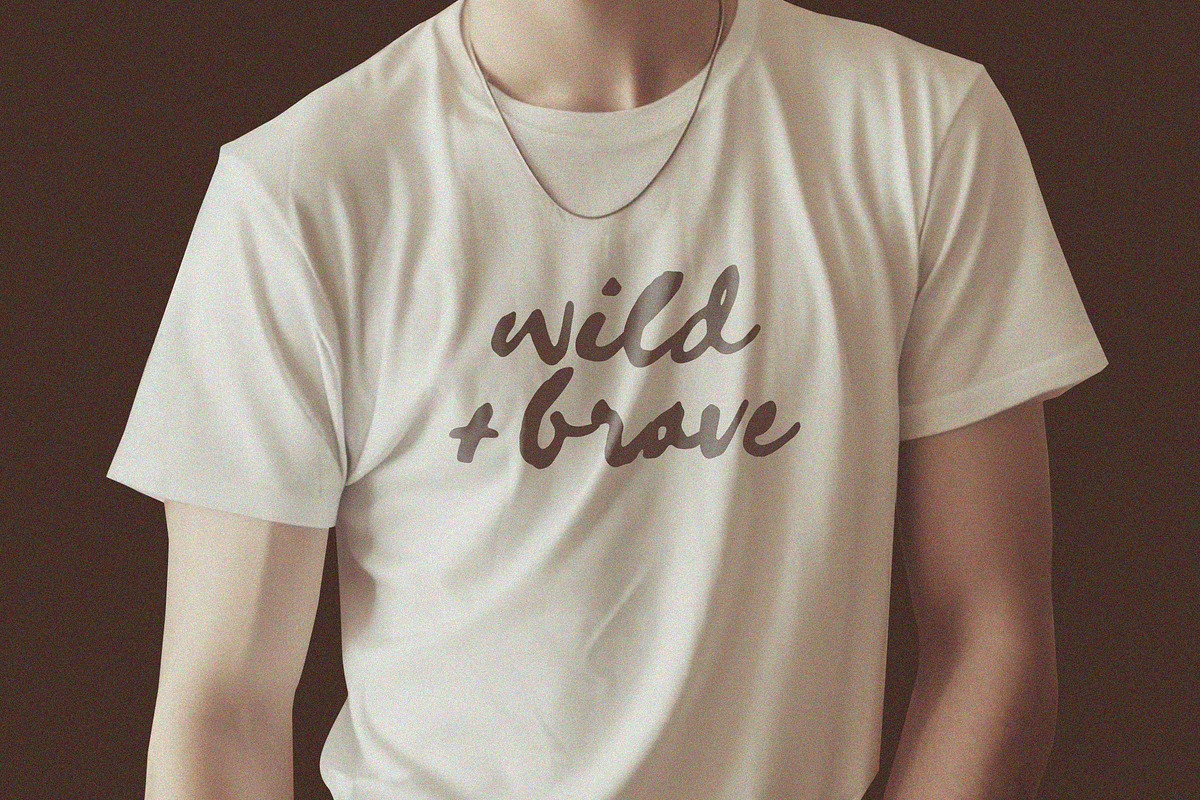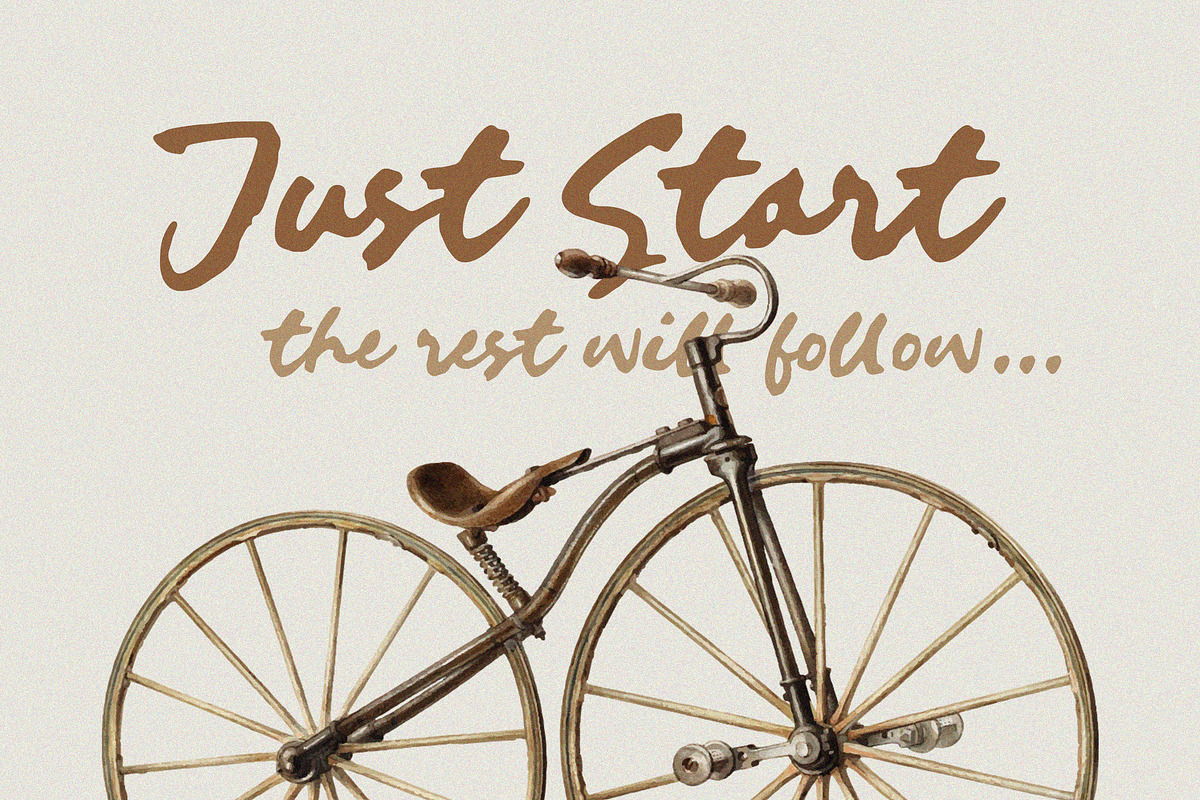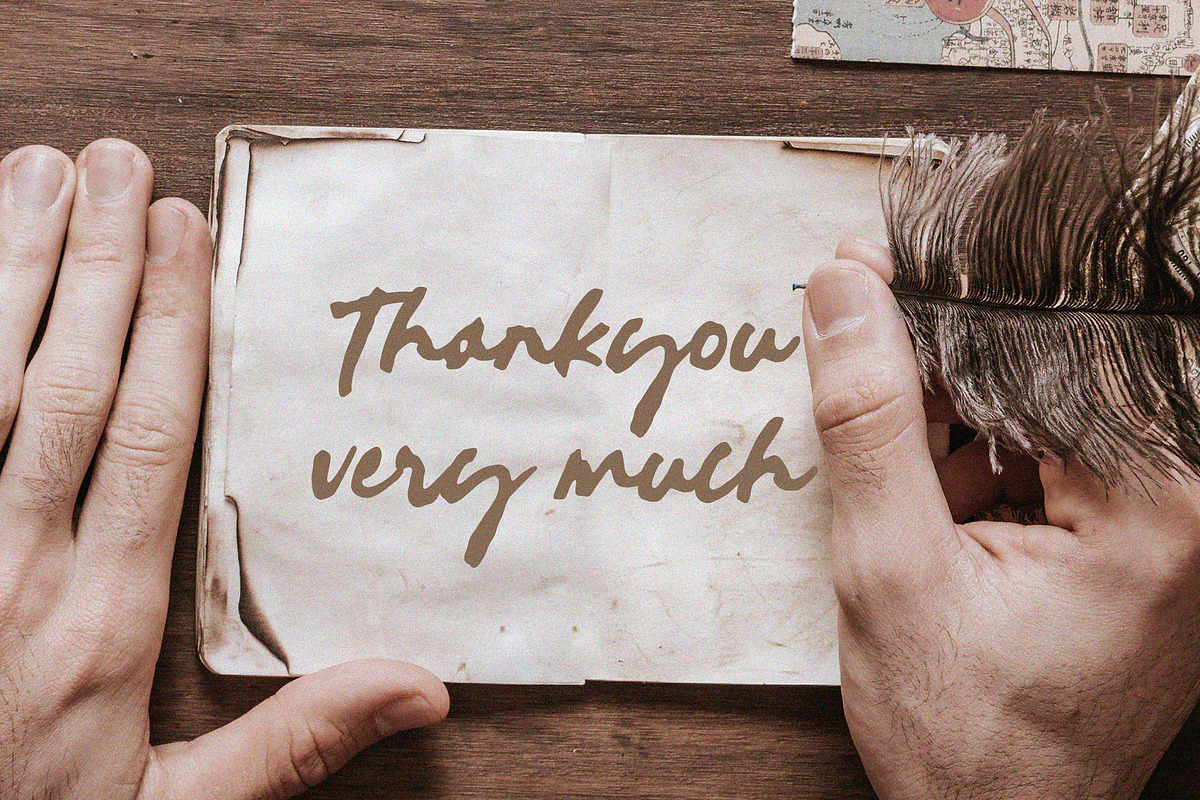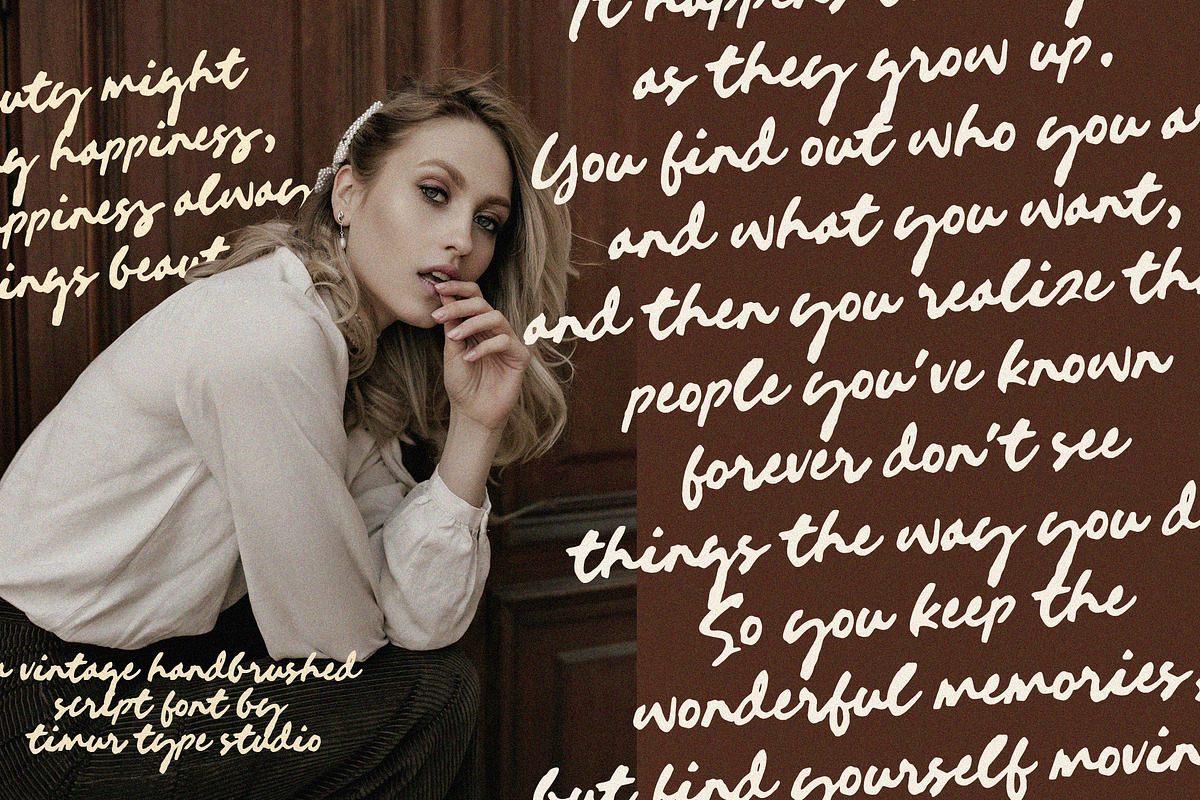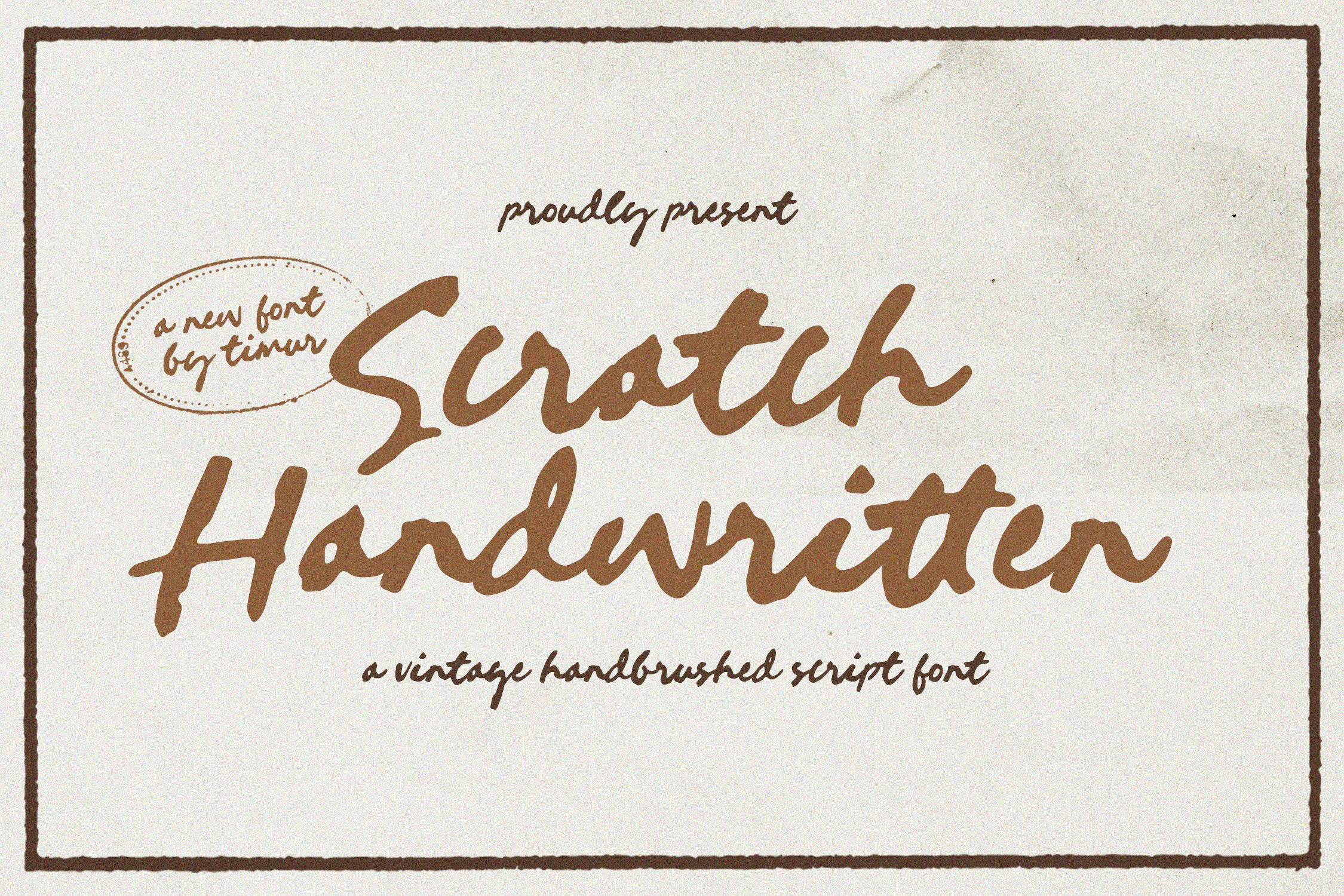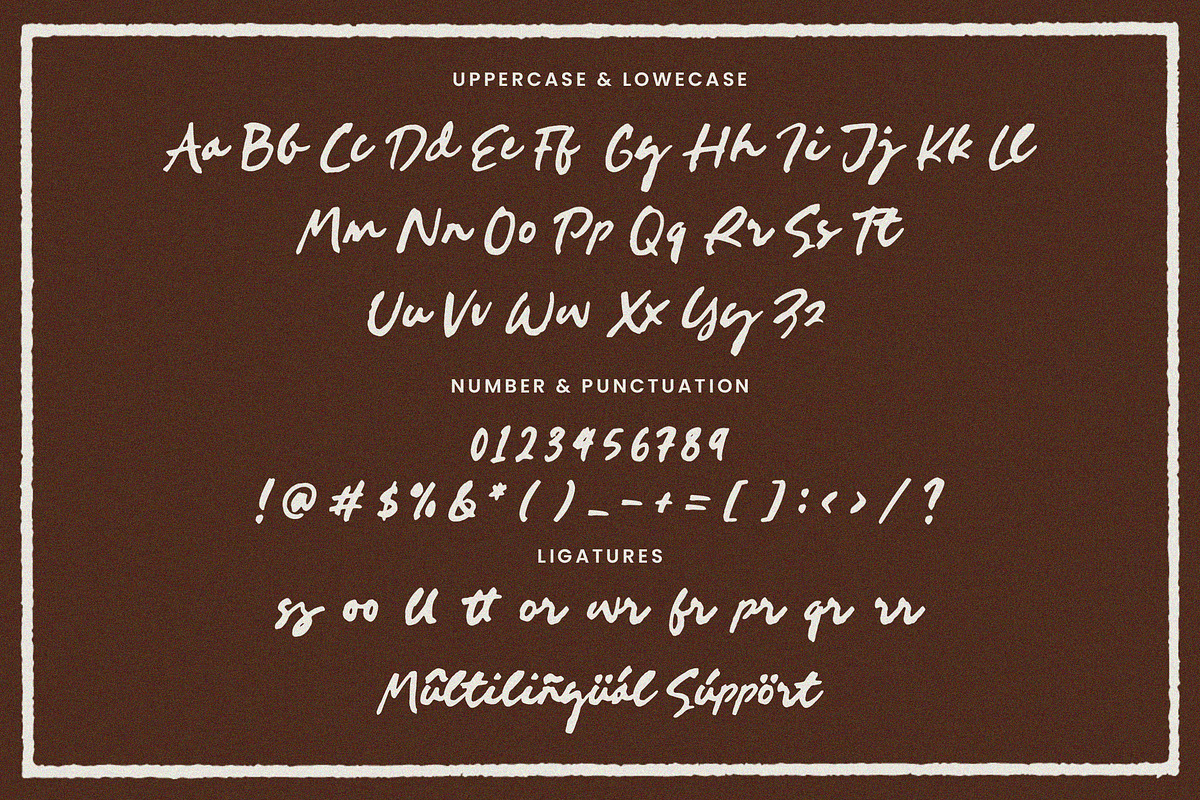
Scratch Handwritten Font
Introduced by Timurtype Studio!
Scratch Handwritten is a Vintage Handbrushed Script Font
This font is a charming vintage handbrushed script font that evokes a sense of nostalgic authenticity. With its carefully crafted irregular strokes and subtle imperfections, this typeface captures the essence of handwritten elegance from a bygone era. Ideal for adding a touch to invitations, signage, and branding projects, Scratch Handwritten blends classic flair with modern readability, making it a versatile choice for design enthusiasts seeking a timeless aesthetic.
Scratch Handwritten also supports multilingualism